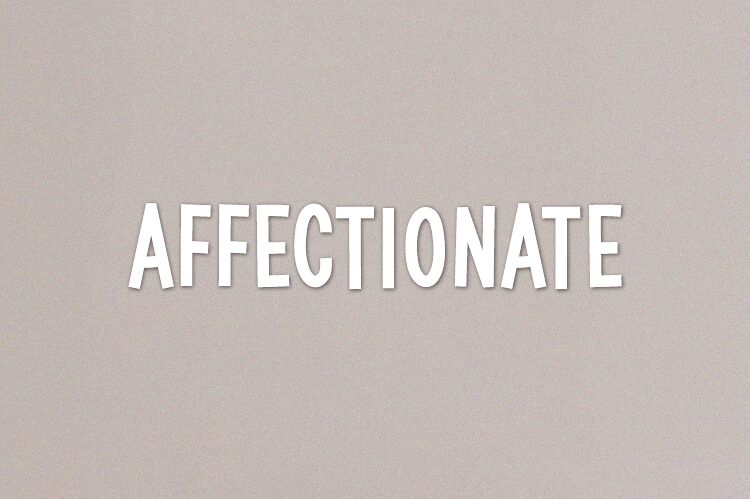
Affectionate
Affectionate font by HannaBie Creative Studio is a free comic display typeface with a tall, squashed look that feels like it’s been stretched by hand. The letters are narrow and slightly irregular, with a playful wobble that gives headlines a lively, almost bouncing rhythm. It’s bold, inky, and a little bit scruffy in the best way—like lettering on a handmade poster or a zine cover.
Using Affectionate, your words stack neatly while still feeling expressive, so it shines on posters, kids’ book titles, quirky branding, greeting cards, social media graphics, and comic-style covers. The condensed shape makes it easy to fit long headlines into tight spaces without losing impact. This free font pairs nicely with a clean geometric sans in smaller text, letting Affectionate handle the fun, attention-grabbing moments.